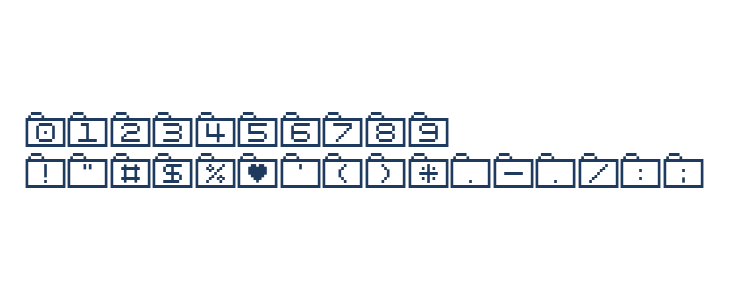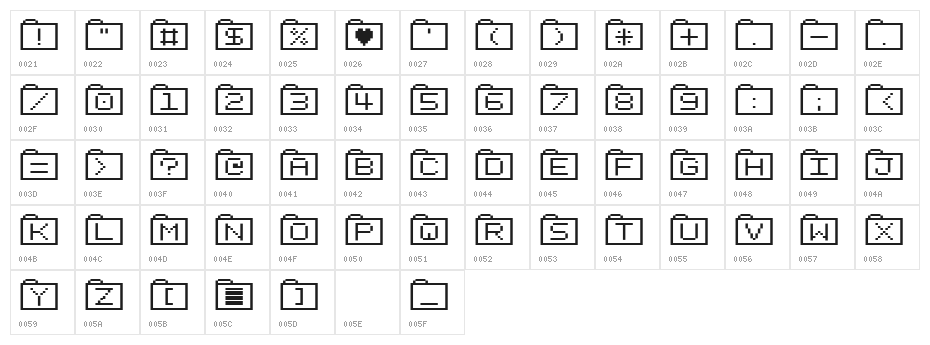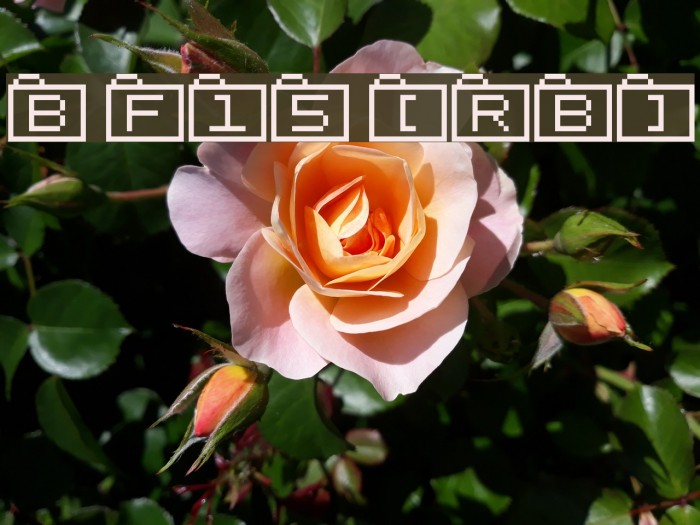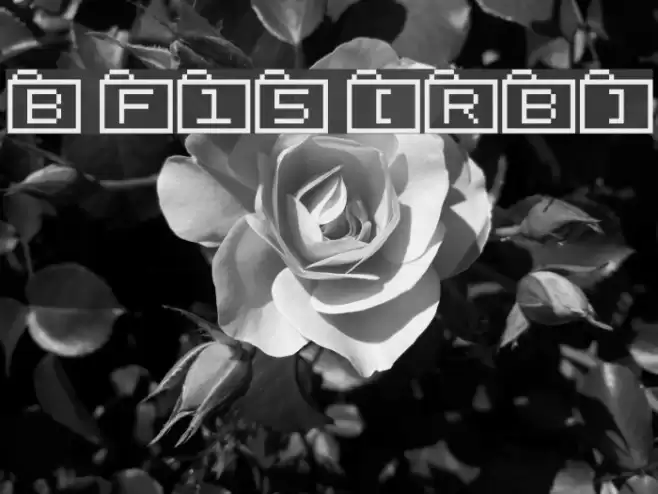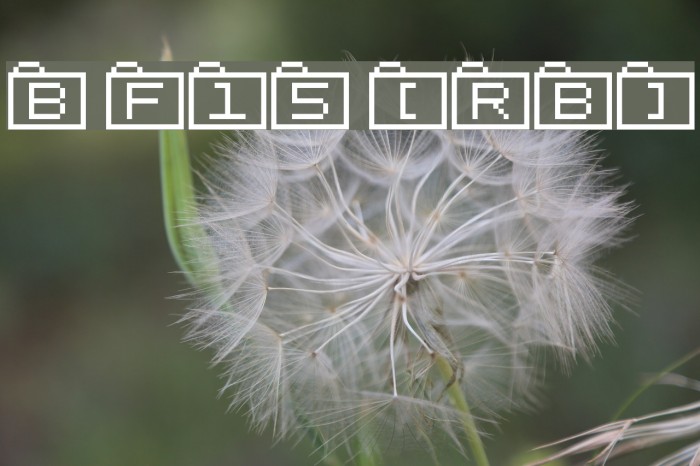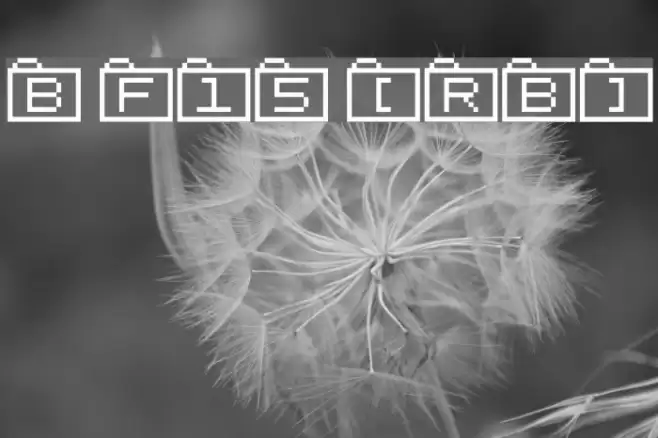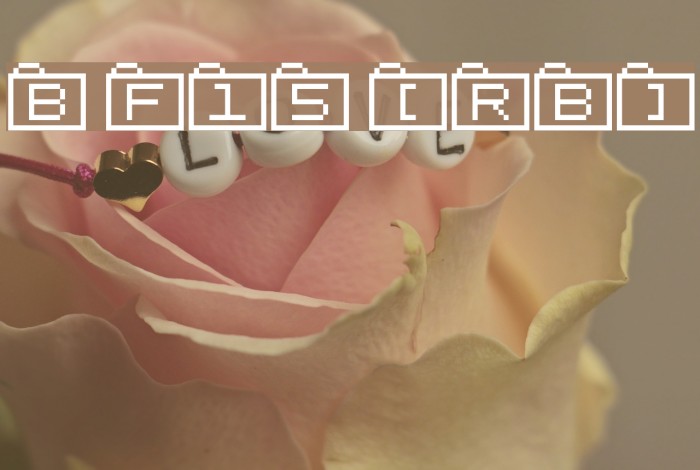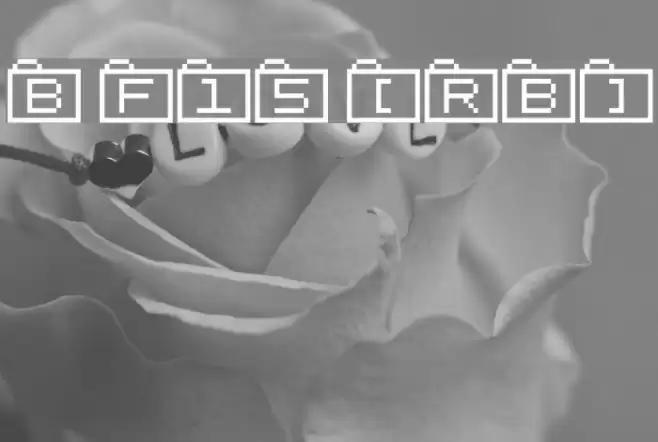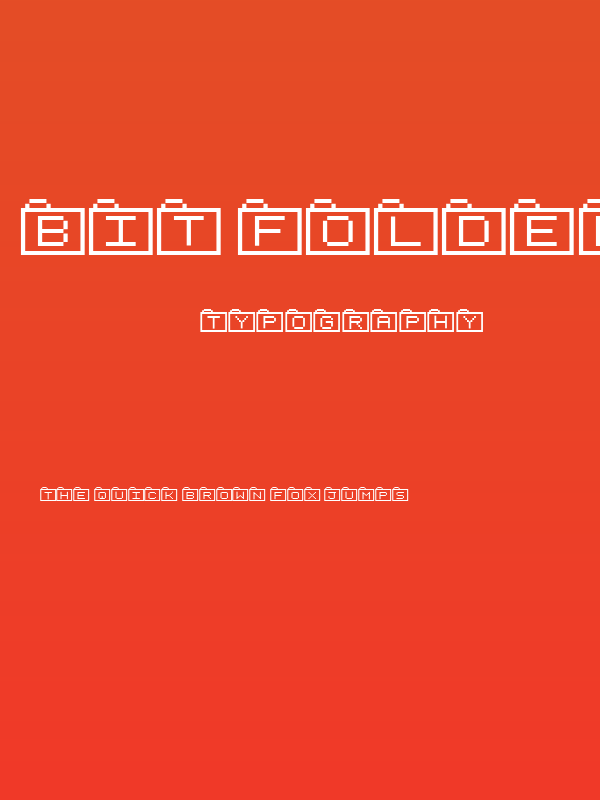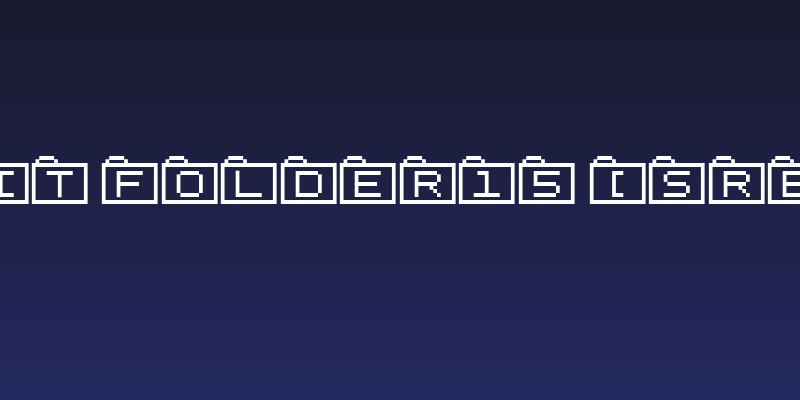
Bit Folder15 [sRB] Font
Bit Folder15 [sRB] Description
This font features a unique, pixelated style that resembles digital or retro video game aesthetics. Each character is enclosed within a square, giving it a distinct, blocky appearance. The uppercase letters are bold and prominent, while the lowercase letters maintain the same pixelated style, ensuring consistency throughout. Numbers and special characters are also designed in the same manner, making them easily recognizable and visually cohesive. The font's design is reminiscent of early computer graphics, offering a nostalgic feel that is both playful and modern.
| Proposed Projects | Ideal for video game design, retro-themed posters, digital art projects, and any creative work that requires a nostalgic, digital aesthetic. |